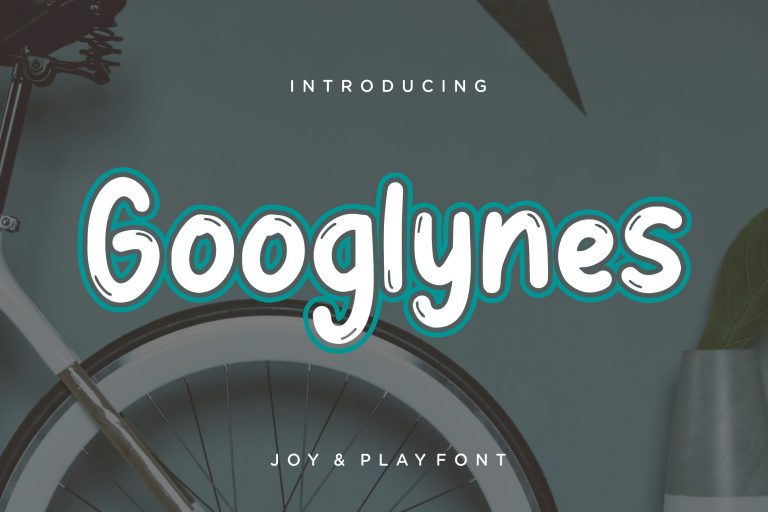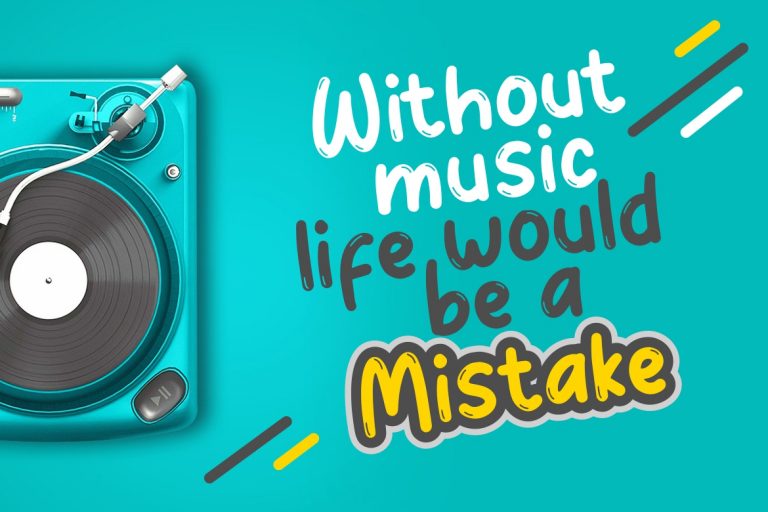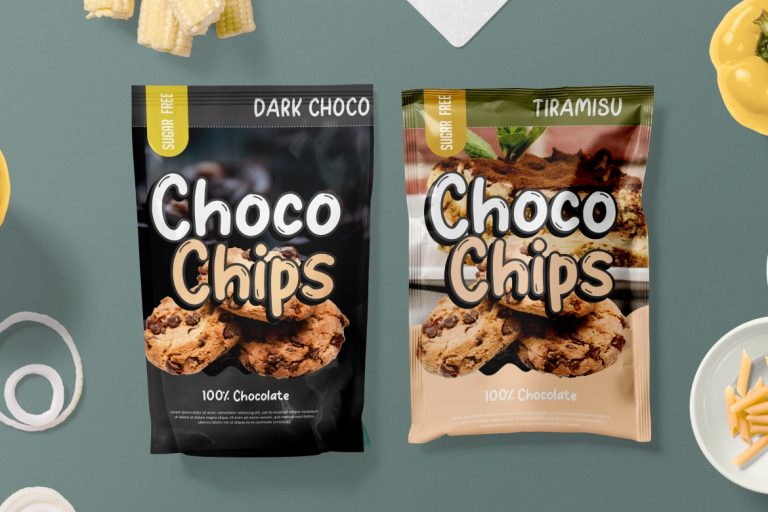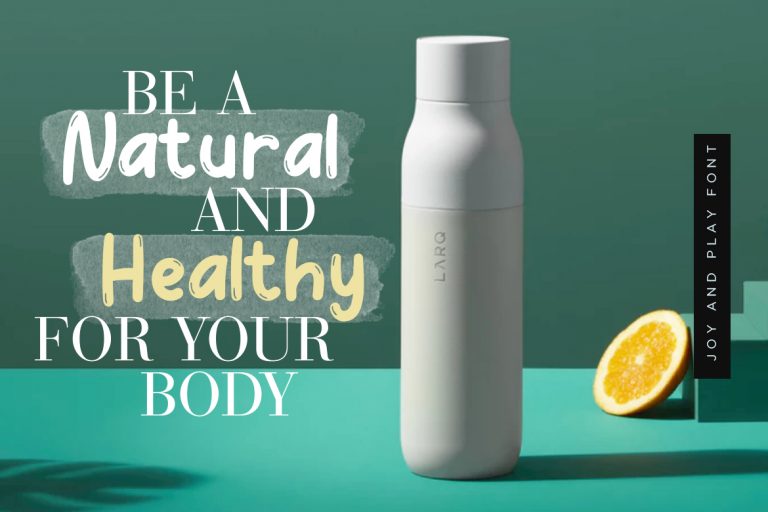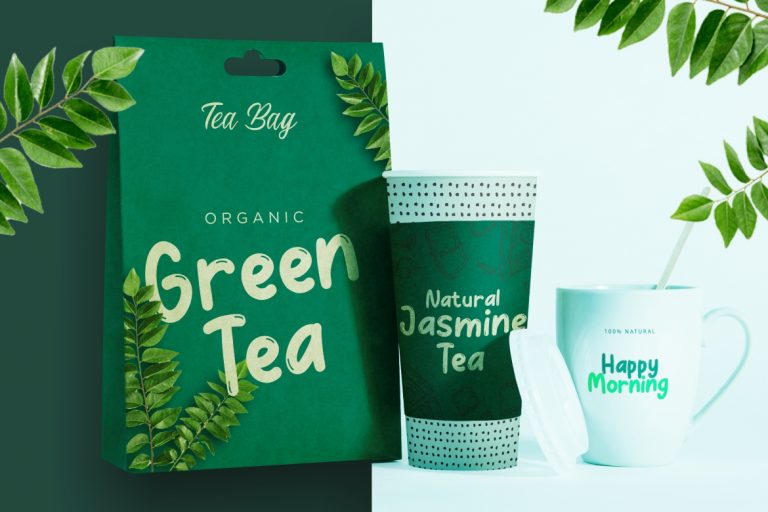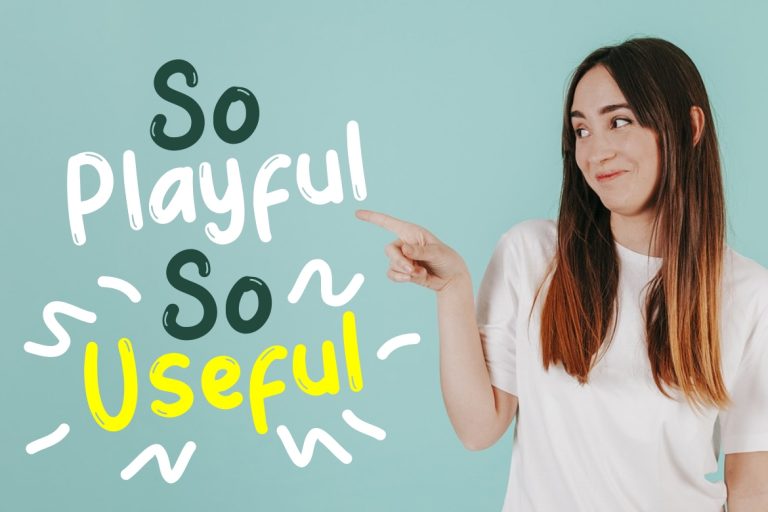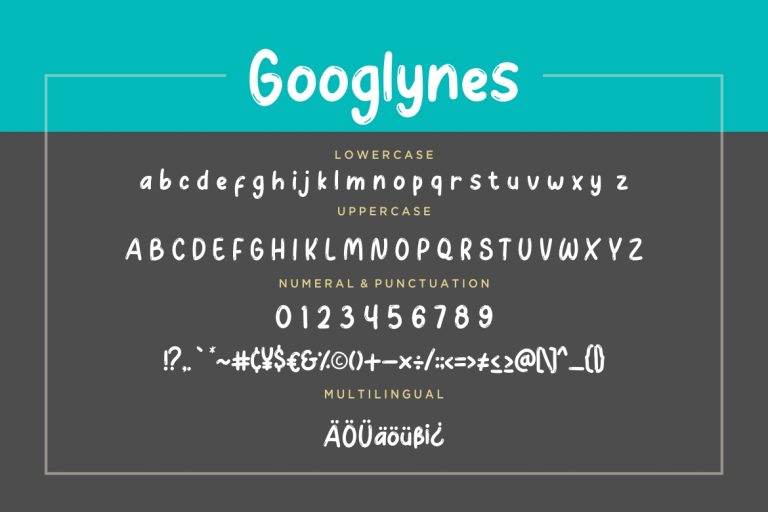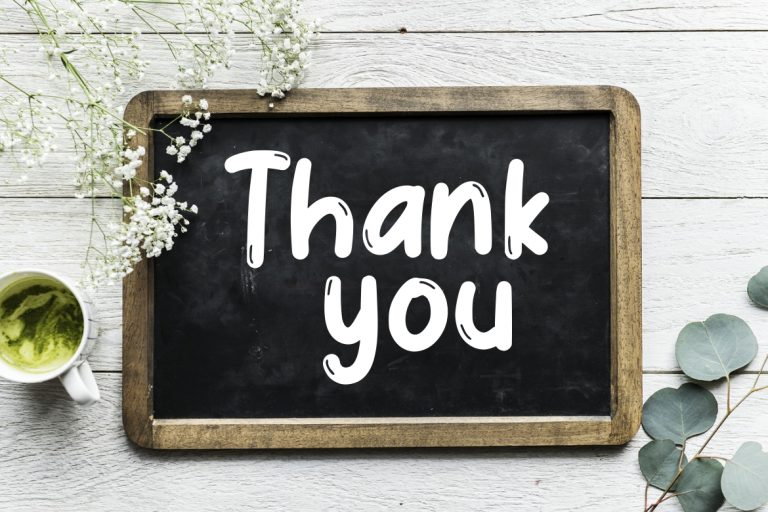
Googlynes Joy & Play
Googlynes is sans serif joy and play full font looks natural hand-drawn.
Googlynes is perfect for branding projects, logo, wedding designs, social media posts, advertisements, product packaging, product designs, label, photography, watermark, invitation, stationery and any projects that need handwriting taste.
- Fonts include multilingual support for; ä ö ü Ä Ö Ü ß ¿ ¡